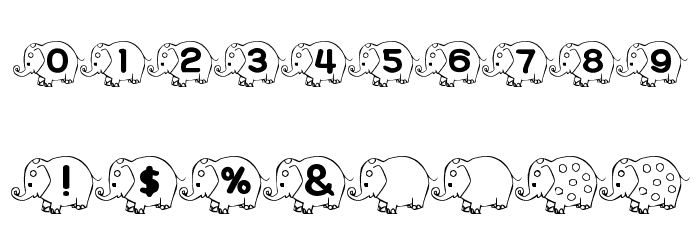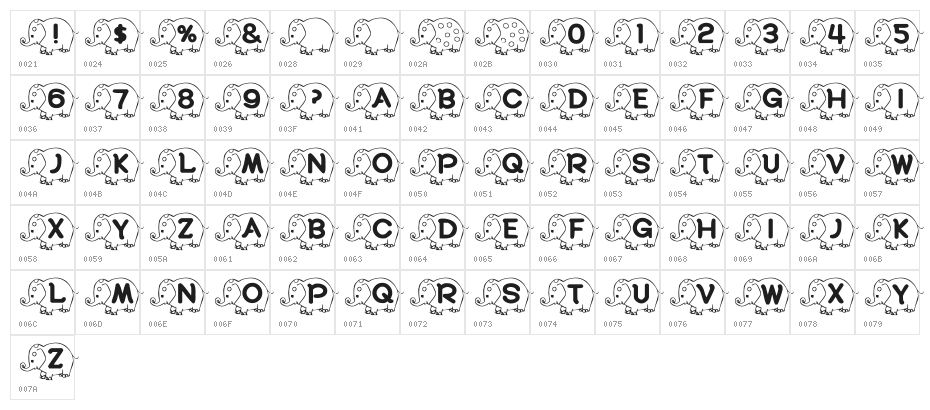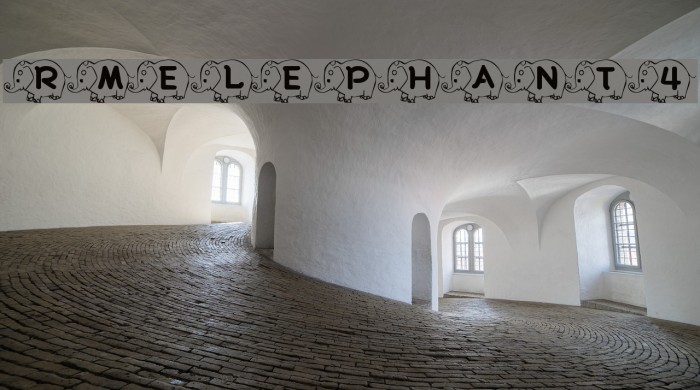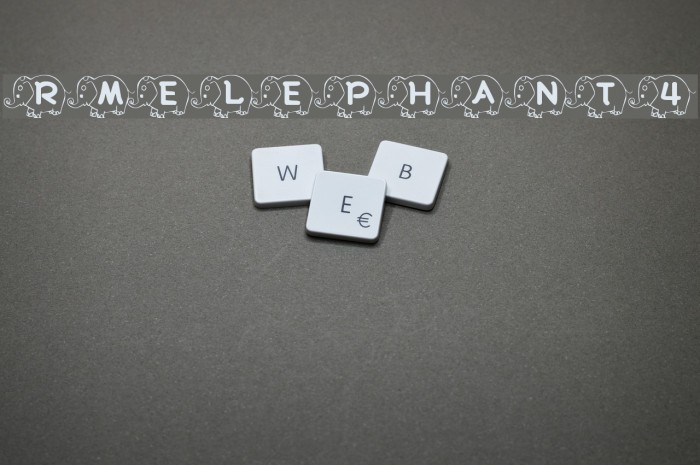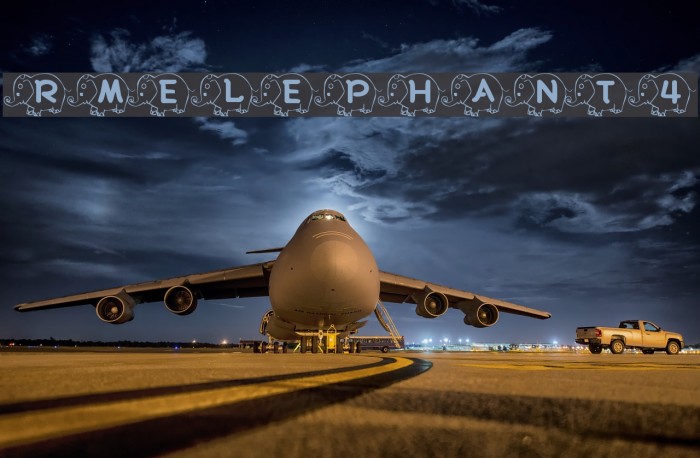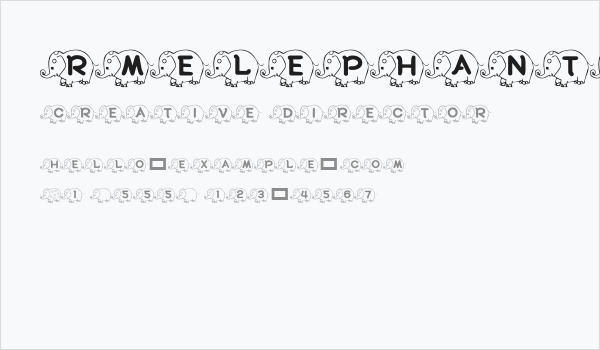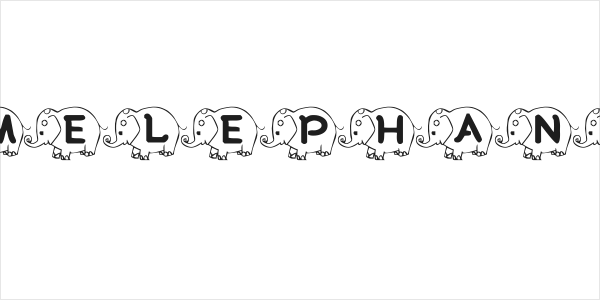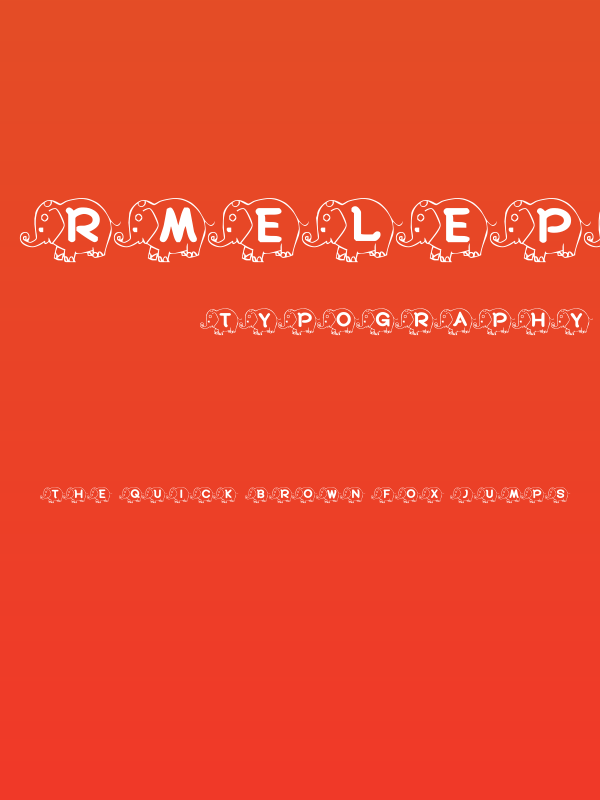
RMElephant4 Font
RMElephant4 Description
This whimsical and playful font features each character enclosed within a charming elephant outline, creating a unique and engaging visual experience. The letters and numbers are bold and clear, making them easily readable despite the decorative elements. The elephants add a fun, childlike quality, making this font ideal for projects aimed at younger audiences or those seeking a lighthearted touch. The consistent design across both uppercase and lowercase letters, as well as numbers and special characters, ensures a cohesive look.
| Use Case | Headlines, Logos, Children's materials |
| Proposed Projects | Ideal for children's books, educational materials, playful branding, and party invitations. |